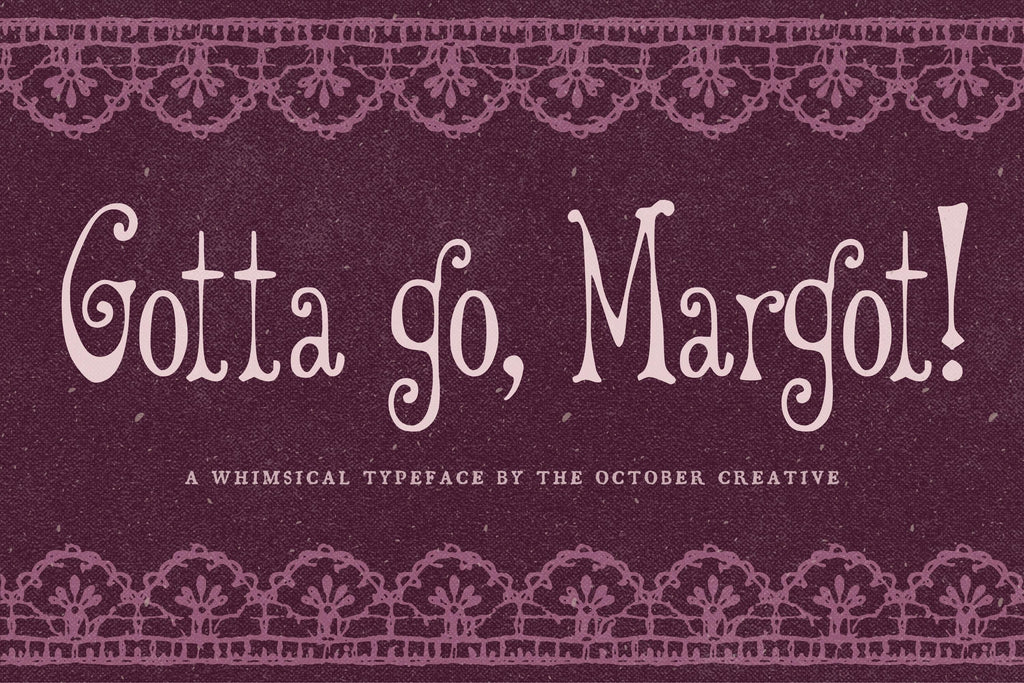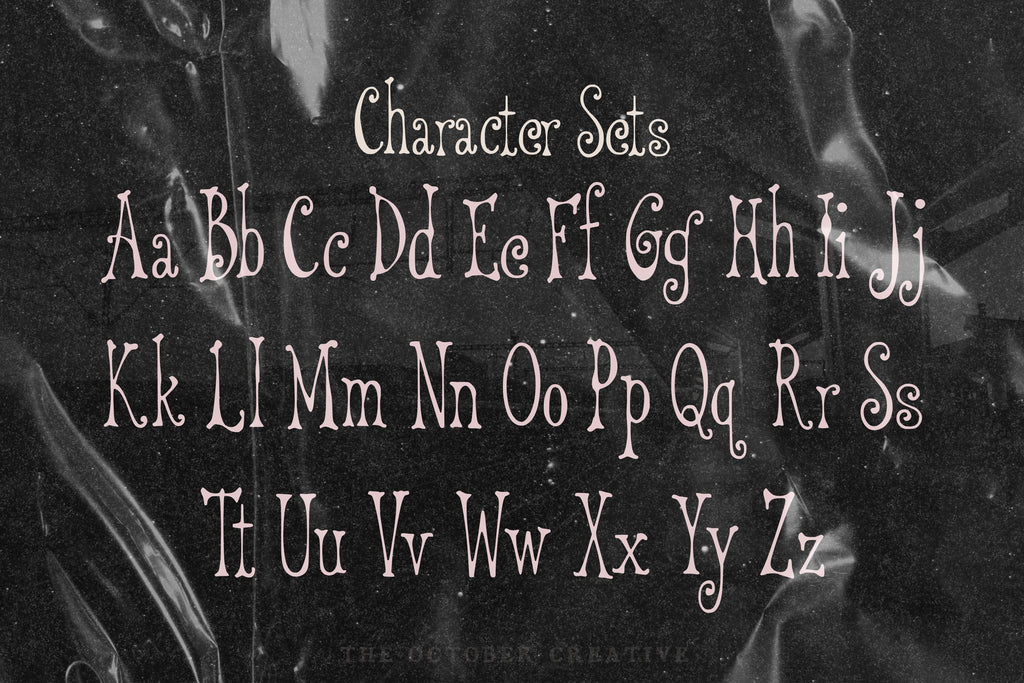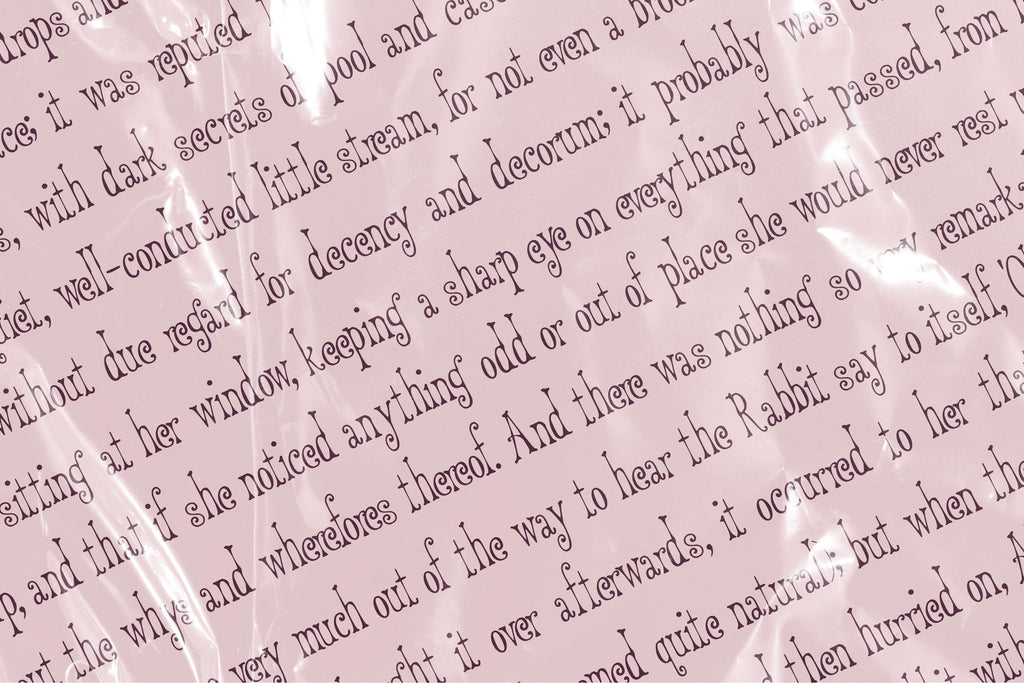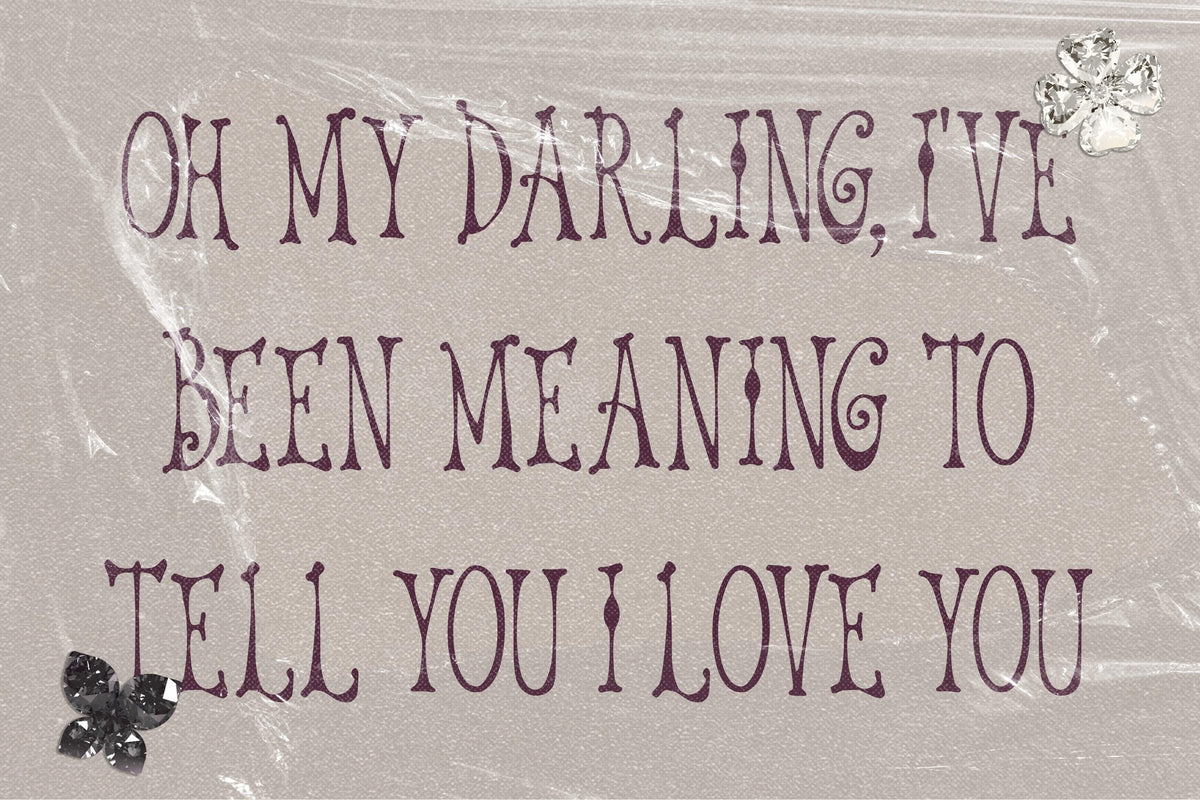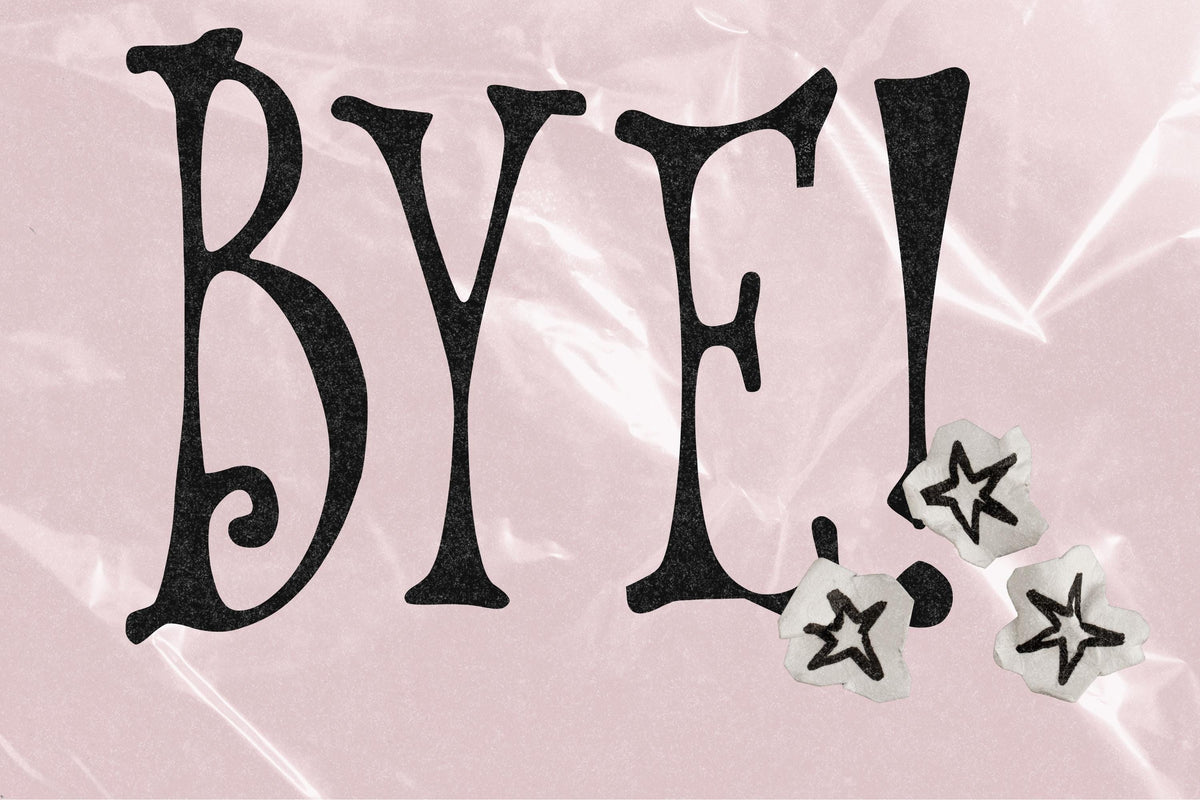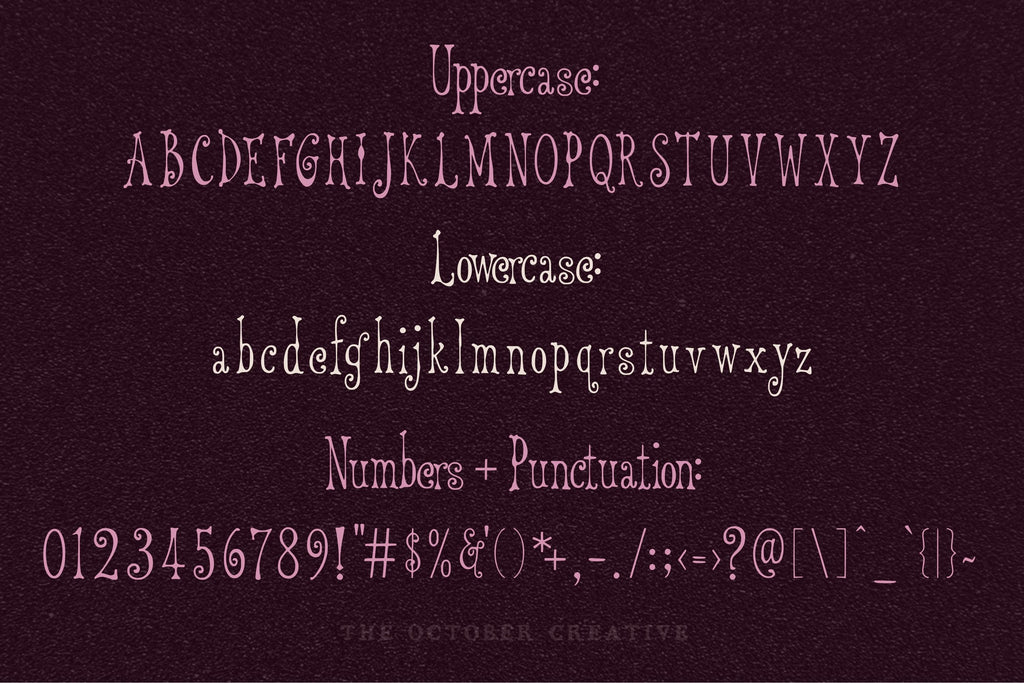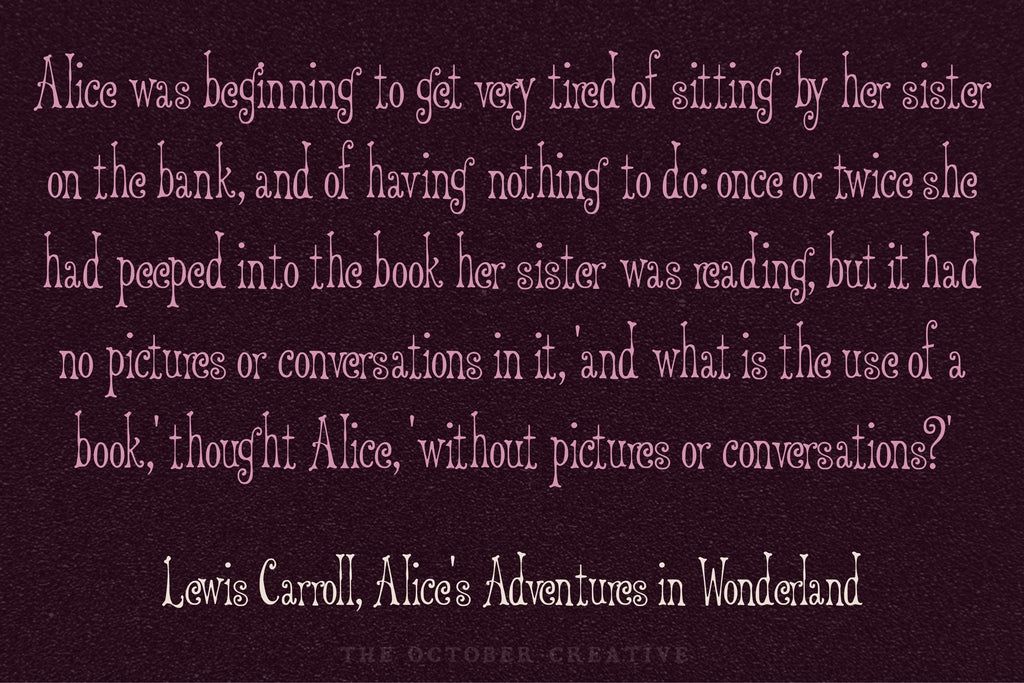
Gotta Go, Margot! Font
Gotta Go, Margot! brings bouncing 70s lettering and curly ends to party invitations, posters, and birthday cards. Its rounded shapes make a cheerful setting for a big announcement, especially if that announcement involves dancing.